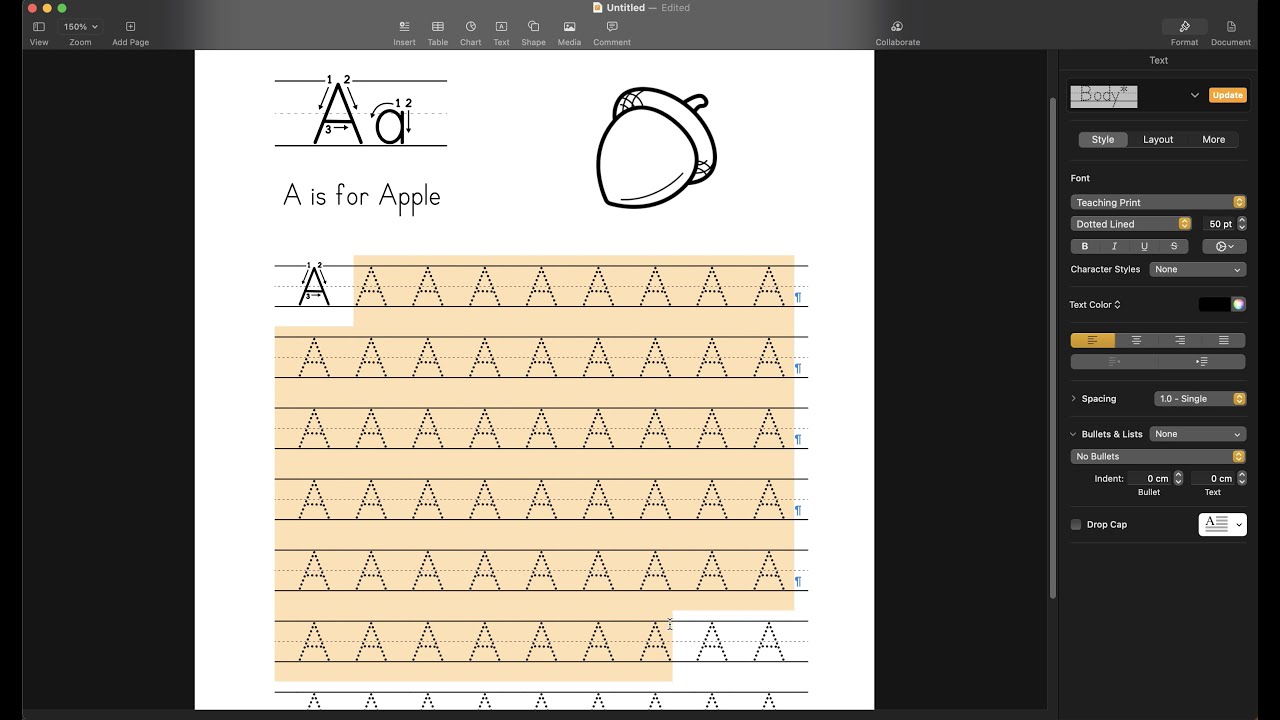
Create A Custom Tracing Worksheet With The Teaching Print Font
Teaching Print Lewis Creative Teaching print| tracing fonts make it faster for teachers everywhere to create customized tracing worksheets and activities tailored to students interests and keep them engaged. Not only can you put together custom printable worksheets based on your child’s skill level or learning goals but it comes in multiple fonts too. there’s guided tracing and bubble letters for those early writers and cursive fonts for kids who need handwriting practice.
Teaching Print Letter Tracing Font With Instructions Lewis Creative Type a child’s name into the generator, choose your handwriting style and portrait landscape layout, and click to create a printable name tracing worksheet. the tool instantly generates traceable letters for name tracing practice. Teaching print font download: lewiscreative.ca teaching printlearn how to create your own custom tracing activities for your students child using t. Use this handy tool to make your own custom handwriting worksheet in your school font and lines. you can even make your own tracing worksheets!. Create a printable tracing worksheet for your students or child. perfect for handwriting practice. Teach students how to achieve their legible and signature handwriting by preparing eye catching practice worksheets you can edit and print from canva's free templates. Just enter the desired name and hit submit and your custom pdf file builds in your browser right before your eyes. font size automatically fits to the page so even long names can be accommodated.